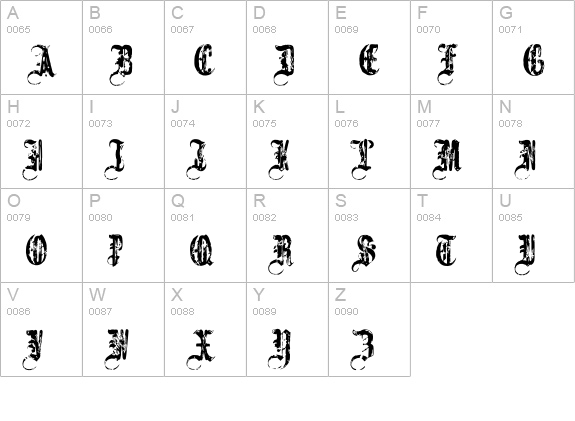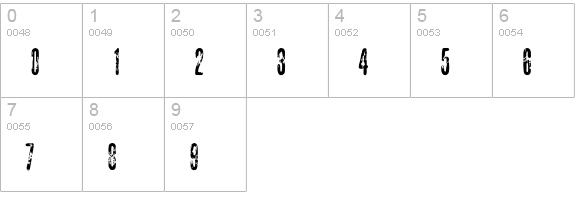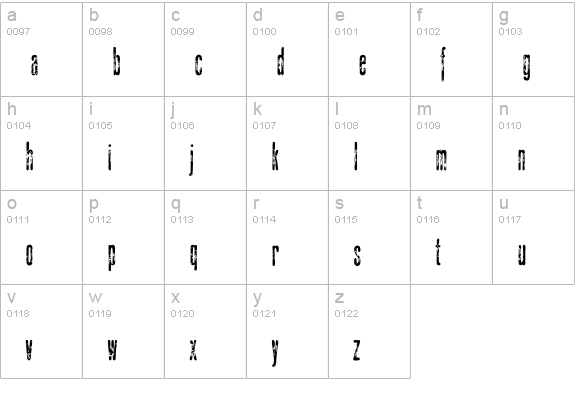
CarpediemEF-Initials Font Details
CarpediemEF-Initials font is a stylish and elegant typeface that exudes a sense of sophistication and creativity. With its bold and distinctive letterforms, this font is perfect for adding a touch of flair to any design project. The intricate details of each character make CarpediemEF-Initials font stand out from the crowd, making it a versatile choice for both digital and print applications. The best part about CarpediemEF-Initials font is that it is completely free to download at FontsMarket.com. This means that you can easily access this stunning font and use it in your projects without any cost involved. Whether you're designing a logo, creating a poster, or working on a branding project, CarpediemEF-Initials font is sure to elevate your designs and make them truly eye-catching. Don't miss out on the opportunity to enhance your projects with the beauty and sophistication of CarpediemEF-Initials font. Download it today for free at FontsMarket.com and unleash your creativity with this stunning typeface.